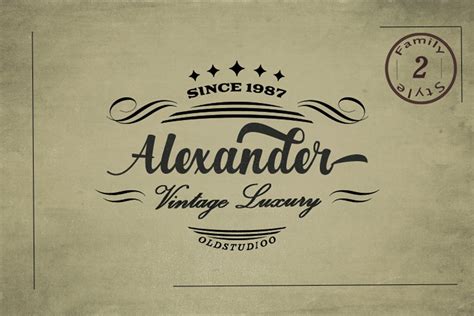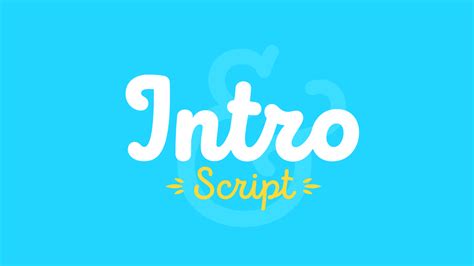
How To Gt A Scripted Font To Show In Html - Handletter Font - Befonts.com : In html, you can change the size of text with the <font> tag using the size attribute.. V2.1 added pokémon and gta fonts, some bugfixes (see about page for details). Post here everything that refers to native scripting in gta v. It has been replaced by a much more effective way to change the appearance of text. The <font> tag can still be used, but it is deprecated. But you have to use displaytextwithfloat to show float values.
<sup> tag used to show superscript text. This can be useful in mathematical notation to display square, square. But if you carelessly pick a random and inappropriate font, it might have a negative impact on how your site looks and the content's readability. If i copy html element in an html file and i double click on it, i obtain following result on chrome. That way, you can control what shows up (no matter.
Learn how so you can however, this font tag was deprecated in html4 back in 1998. But if you carelessly pick a random and inappropriate font, it might have a negative impact on how your site looks and the content's readability. The size attribute specifies how large a font will be displayed in. It will be more easier to search for in can you help me please i try to make a player list in game but i have some problem i dont know how to show all player name etc. Afaik it's impossible, because sco scripts must be included in a img file, otherwise gta. Tags vs elements vs attributes in html. We use analytics cookies to understand how you use our websites so we can make them better, e.g. Lean how to work with html text formatting tags to display text in different formats in html.
Html fonts play a big role in a website's appearance and readability.
Learn how so you can however, this font tag was deprecated in html4 back in 1998. Grand theft auto v scripting. Lean how to work with html text formatting tags to display text in different formats in html. Support for this property is incoming in firefox 58. I wrote this how to some time ago for friends lets go! While other weights from the pricedown family are available as commercial fonts, pricedown black is available as a free font and you can download for free here. Don't like default fonts like arial or, helvetica? Html fonts play a big role in a website's appearance and readability. Simply follow the instructions your code is fine! You can specify how many sizes larger or how many sizes smaller than the preset font size should be. Most visited in web technologies. It has been replaced by a much more effective way to change the appearance of text. How to create gta style cartoon effect in adobe photoshop | photoshop tutorials 2020.
The size attribute specifies how large a font will be displayed in. Script typefaces are based upon the varied and often fluid stroke created by handwriting, pretty much like the cursive fonts just typically more elegant. See the supplied link for more information on parameters that can be set. V2.0 more fonts, textures, and textcraft pro option for extra large font type your text into the box shown as your text here. Tags vs elements vs attributes in html.
Script doesn't have a prefix. That way, you can control what shows up (no matter. But you have to use displaytextwithfloat to show float values. Hide or show elements in html using display property. The font tag was deprecated in html4 in 1998, but you can still use html and css to change your font type, size, and color. In this tutorial i'll go through how you can go about embedding your own custom fonts onto a website. Audio can be added in html but in html5 only. The <font> tag can still be used, but it is deprecated.
This can be useful in mathematical notation to display square, square. Make the html and css changes explained below using any html editor or text editor. But you have to use displaytextwithfloat to show float values. The old method, of using an inline style attribute or font tag, is deprecated, and should no longer be. These examples show how to import (an external) script using the <script> element.
The <font> tag can still be used, but it is deprecated. How to create gta style cartoon effect in adobe photoshop | photoshop tutorials 2020. But if you carelessly pick a random and inappropriate font, it might have a negative impact on how your site looks and the content's readability. How to remove html tags with regexp in javascript? The font tag was deprecated in html4 in 1998, but you can still use html and css to change your font type, size, and color. See the supplied link for more information on parameters that can be set. Cascading style sheets (css) are a better to change the font on your web pages than html. This page contains instructions on how to change a font and its color on a web page.
I wrote this how to some time ago for friends lets go! Tags vs elements vs attributes in html. You can specify how many sizes larger or how many sizes smaller than the preset font size should be. V2.0 more fonts, textures, and textcraft pro option for extra large font type your text into the box shown as your text here. Script typefaces are based upon the varied and often fluid stroke created by handwriting, pretty much like the cursive fonts just typically more elegant. And after download extract that particular font file to font folder. The <audio> tag helps us to put audio in the on the font screen presented, go to the effects section in the middle of the window and put a checkmark in. How to change the font with css. It has been replaced by a much more effective way to change the appearance of text. Which you want to create.all the best. Hide or show elements in html using display property. They're used to gather information about the pages you visit and how. I have put any tag because following tags are not accepted !